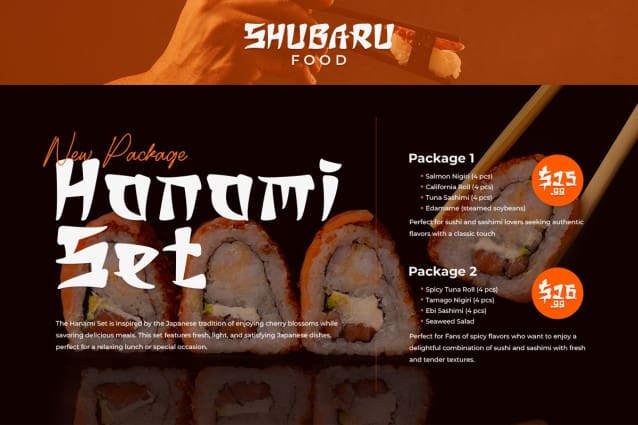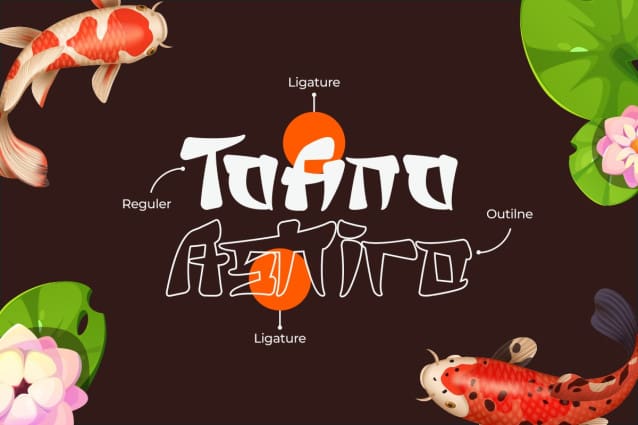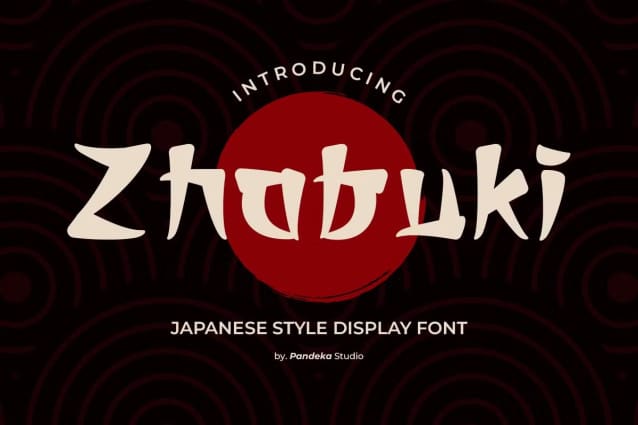
Zhabuki Japanese Font
Zhabuki Japanese Font, a stunning display font inspired by the beauty of Japanese and Korean aesthetics. Combining traditional East Asian charm with a modern touch, Zhabuki is the perfect choice for bringing authentic Asian vibes into your designs.
Each letter in Zhabuki Japanese is carefully crafted, blending traditional artistic elements with contemporary styles. With 30+ unique ligatures and alternates, you can easily create distinctive and captivating typography compositions. This font is ideal for branding, posters, packaging, social media designs, and so much more!
What makes Zhabuki even more special is its 30+ unique ligatures, multilingual support, allowing you to communicate your message effectively to a global audience.